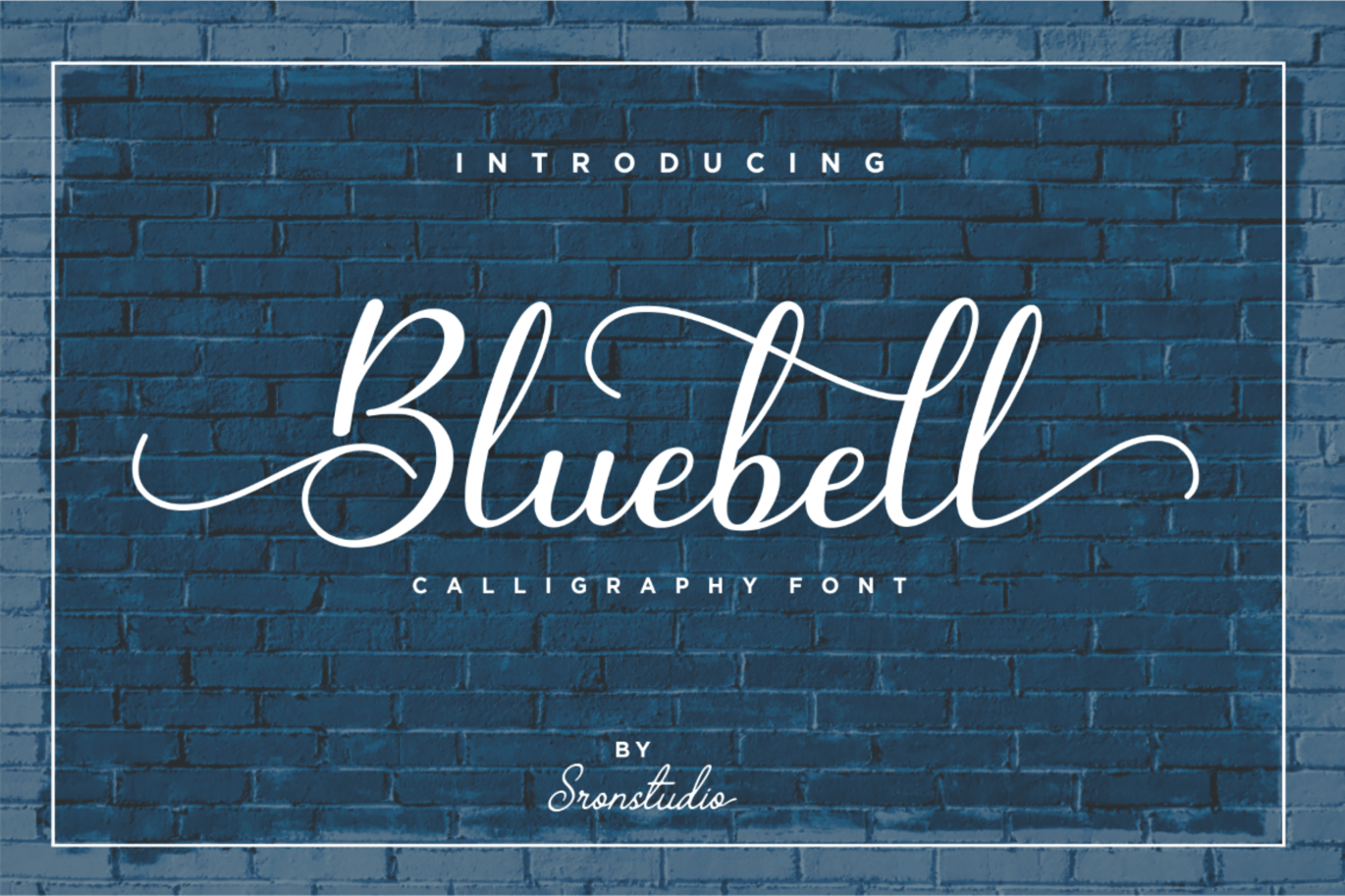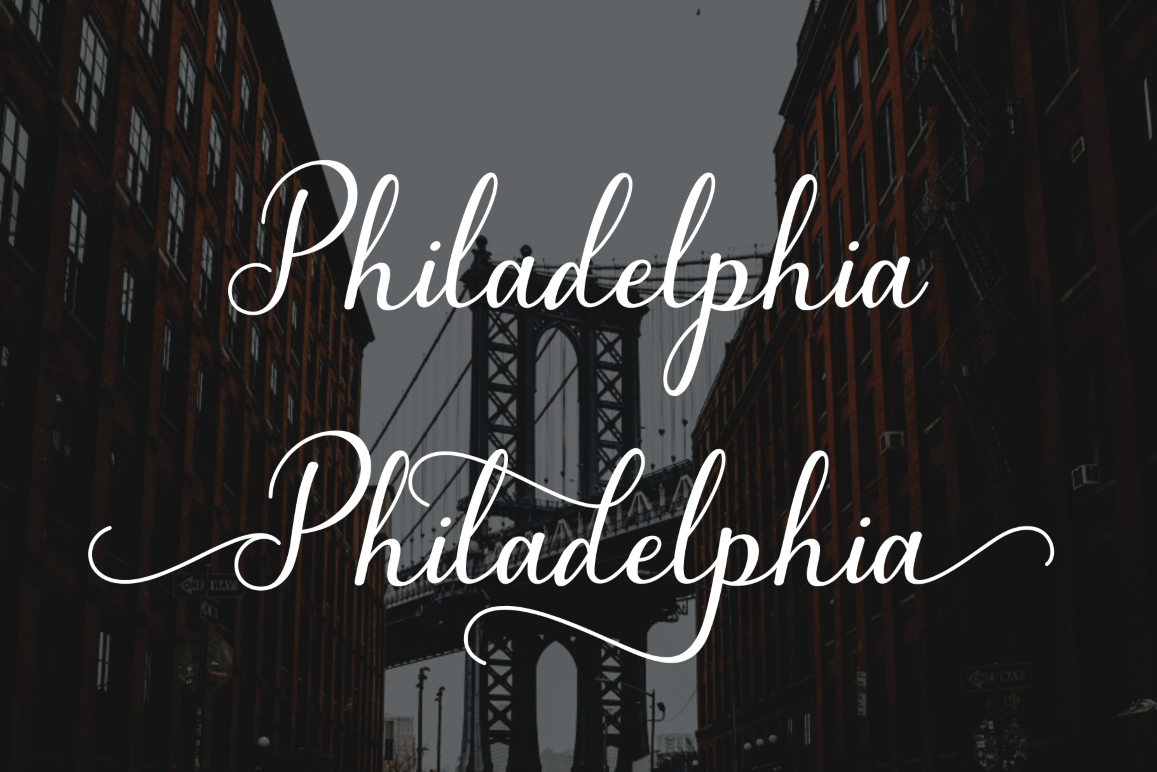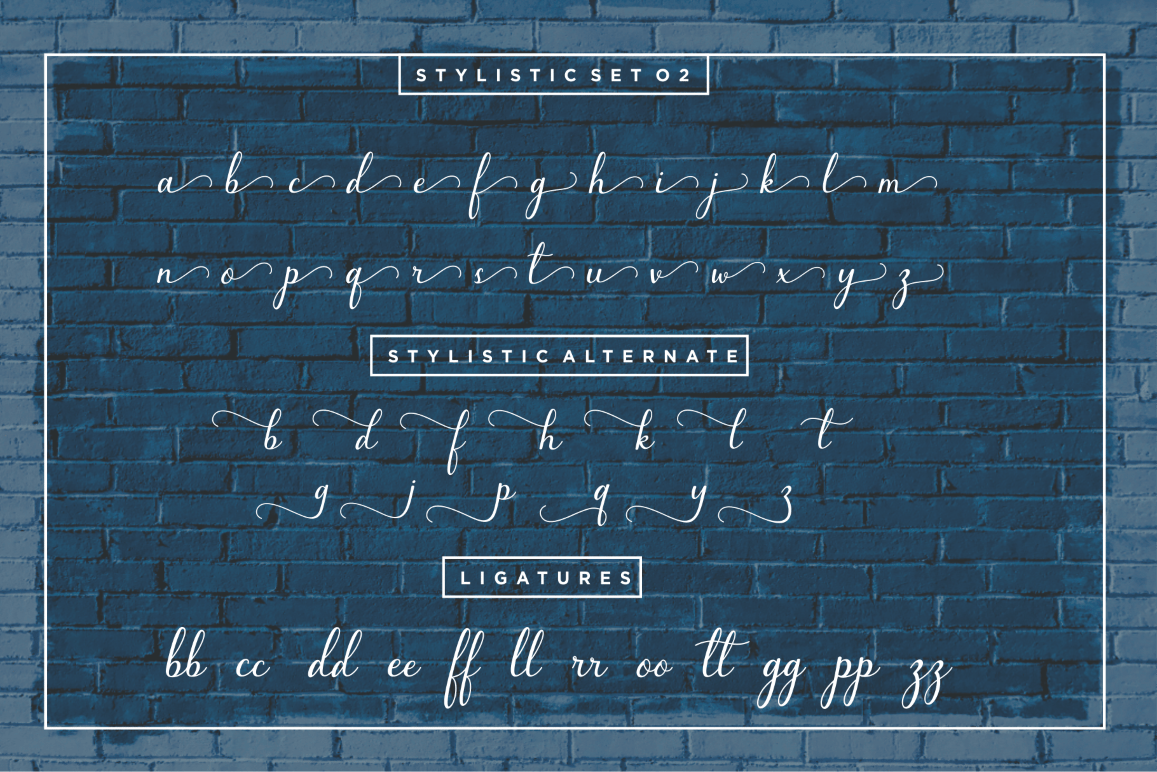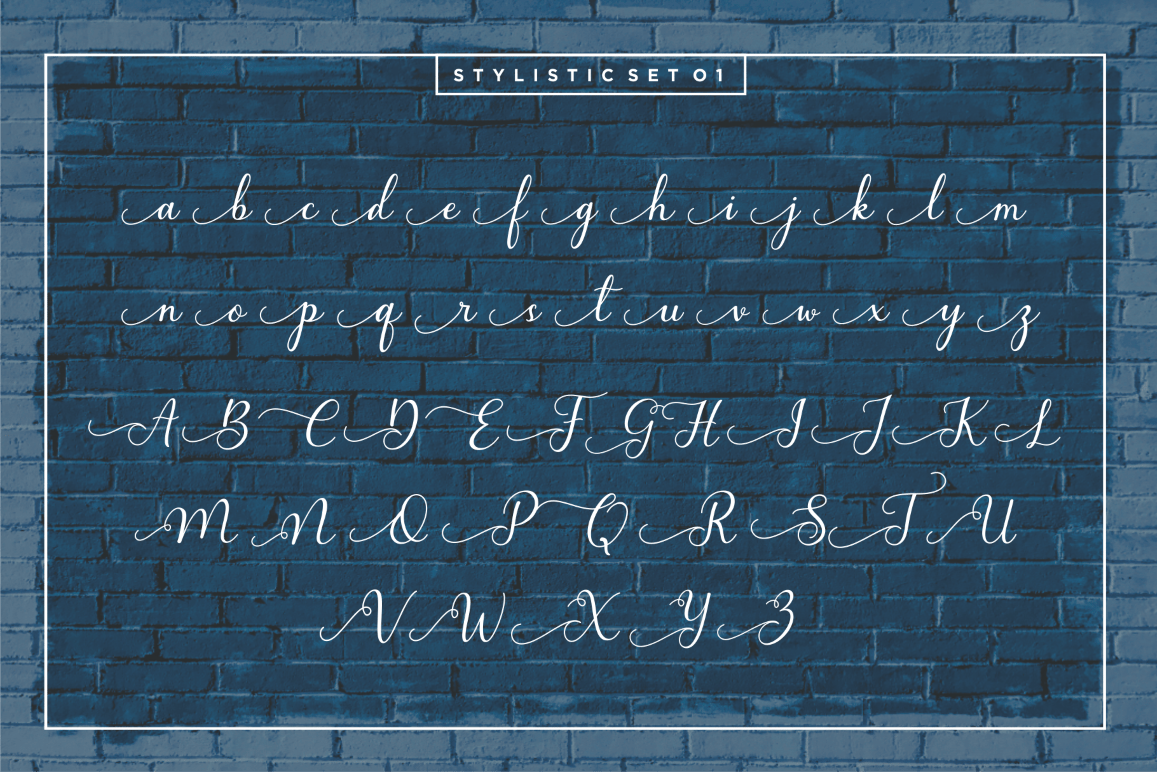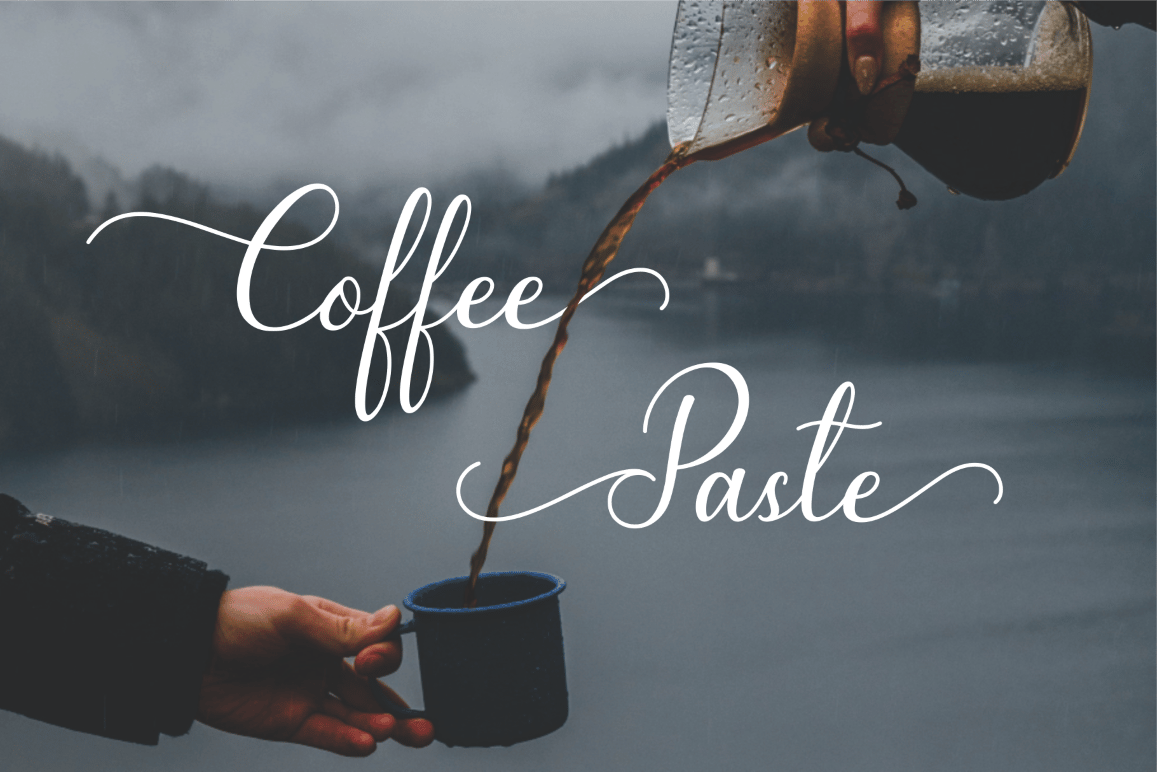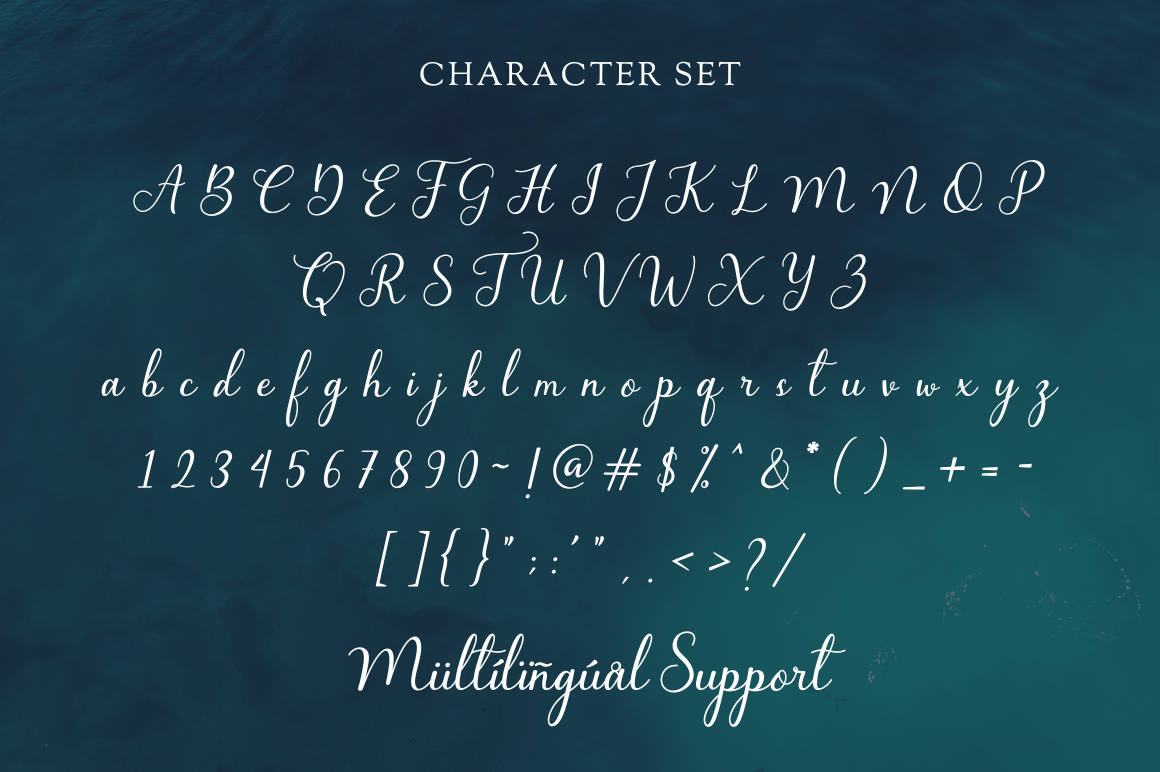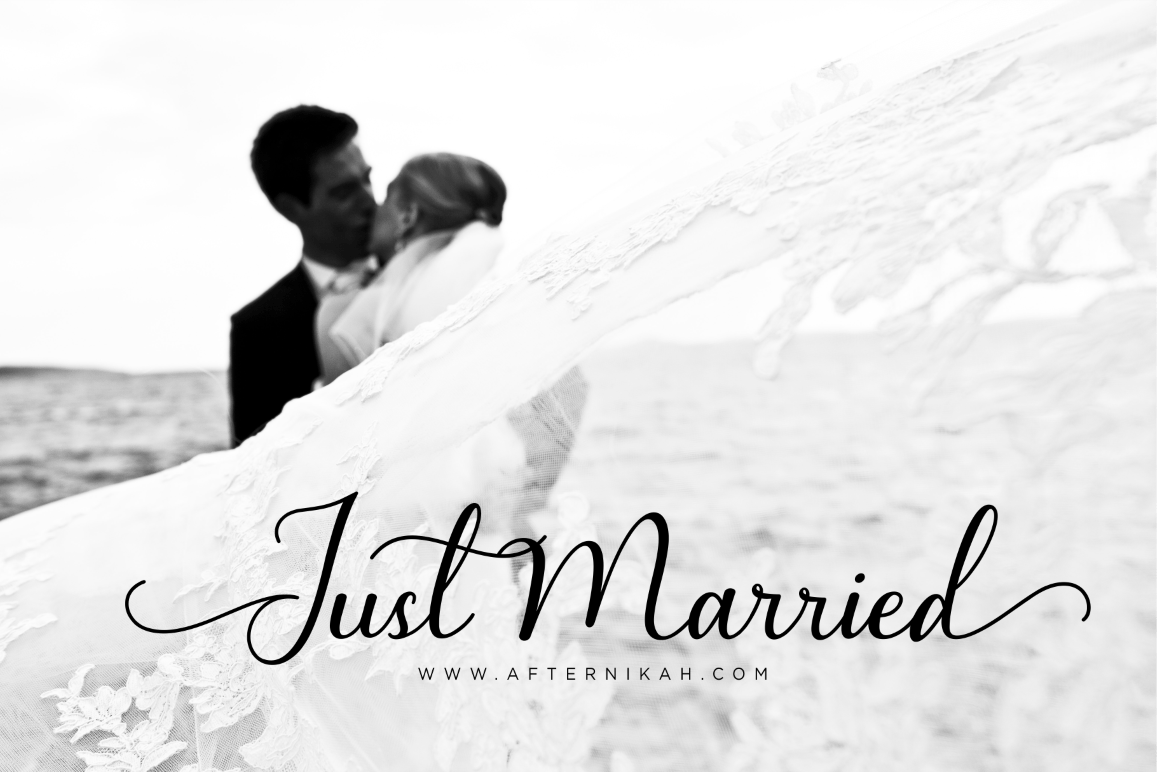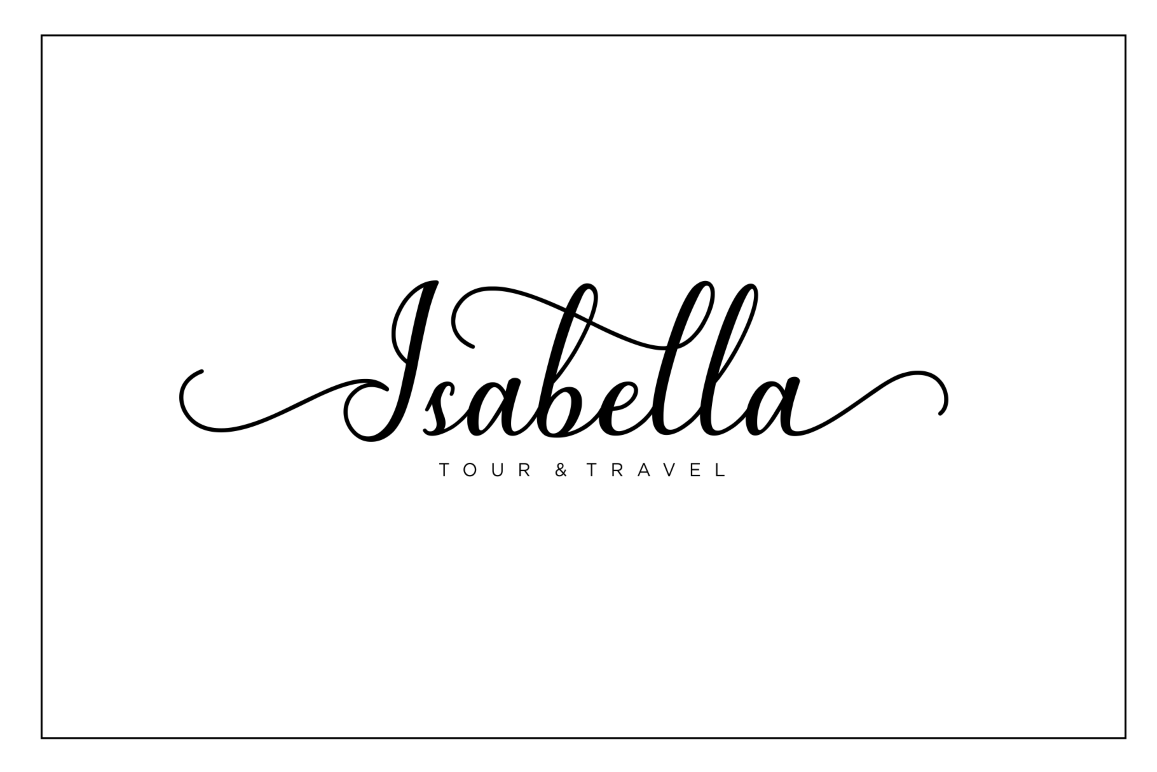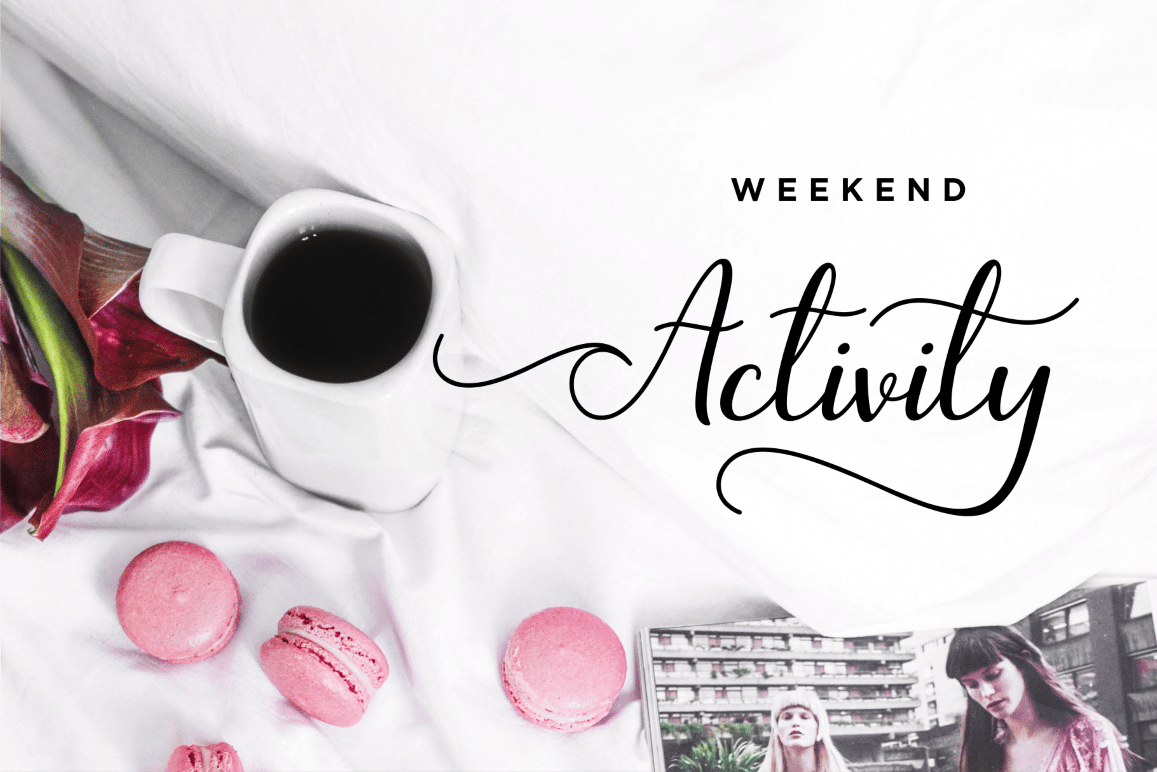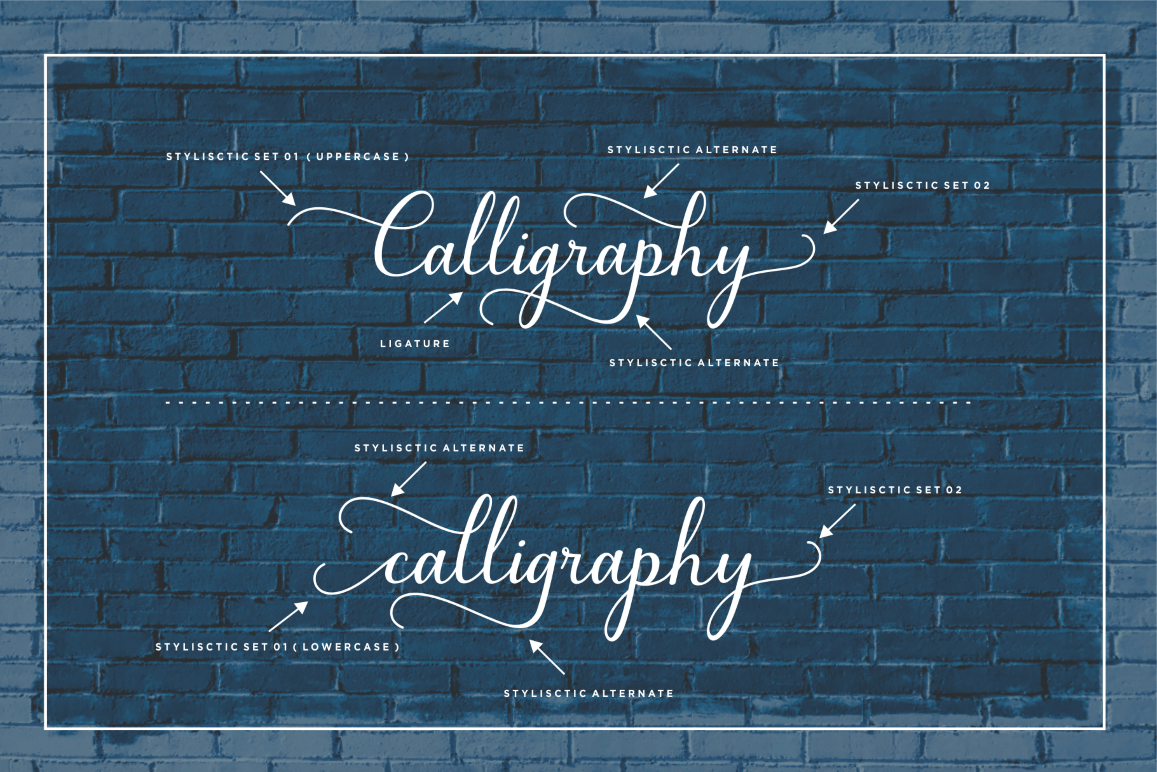
Bluebell – Modern Calligraphy Font
Introducing Bluebell – a new modern & fresh calligraphy font with a lot of stylistic alternatives makes this font looks natural, elegant, and perfect for any awesome project.
Bluebell is perfect for many different projects such as logos & branding, invitation, stationery, wedding designs, social media posts, advertisements, product packaging, product designs, label, photography, watermark, special events or anything.
- swash alternates